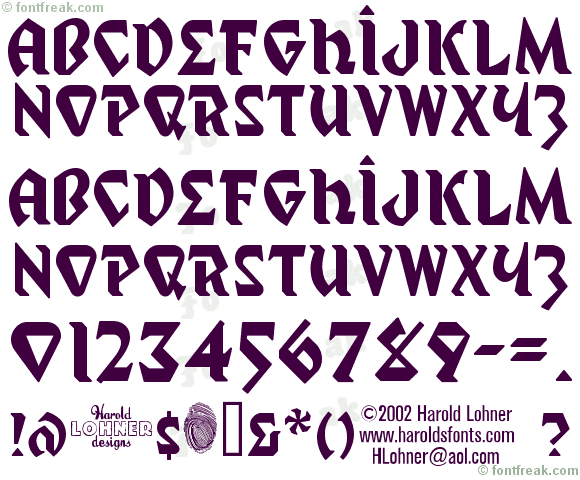
Mystic Prophet
About Mystic Prophet
The Mystic Prophet font by Harold Lohner is a striking decorative typeface that captures a sense of mystique and intrigue. Released in 2002 as freeware, this unique font draws inspiration from the lettering used in the Hasko Talking Board of the same name. Its design features bold, angular strokes and a distinct geometric aesthetic, making it an eye-catching choice for various creative projects. The stroke weight is consistent, with minimal contrast, allowing for easy readability while maintaining a strong visual impact. The spacing is well-balanced, giving the font a cohesive look that stands out in any context.
Ideal for a wide range of applications, the Mystic Prophet font is particularly suited for fantasy-themed wedding invitations, mystical book covers, and movie posters where an otherworldly atmosphere is desired. It can also enhance restaurant menus that aim to create an enchanting dining experience or be used in promotional materials for events centered around spirituality and mysticism. This font appeals to graphic designers, small business owners, and content creators looking to add a unique flair to their projects.
What truly sets the Mystic Prophet font apart is its ability to evoke a sense of wonder and curiosity. It invites the viewer to explore the themes of mystery and prophecy, making it a compelling choice for projects that require a touch of the extraordinary. With its distinctive design and versatile applications, the Mystic Prophet font free download is a must-have for anyone looking to make a bold statement in their typography. Embrace the allure of this exceptional typeface and let it elevate your creative endeavors.